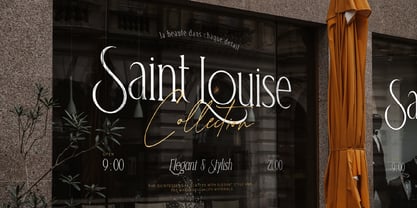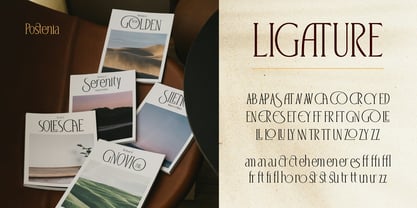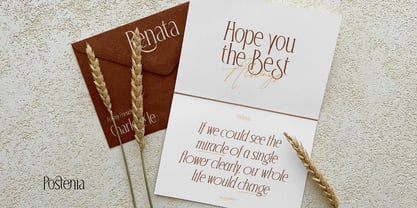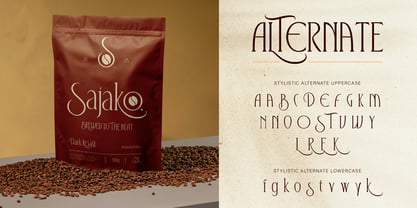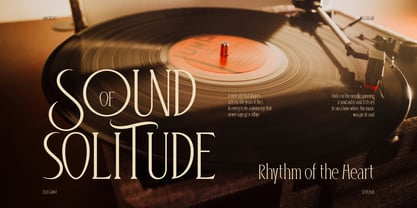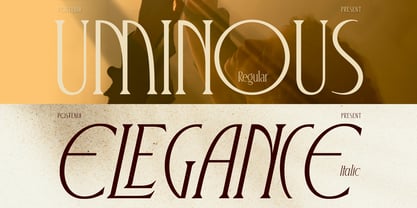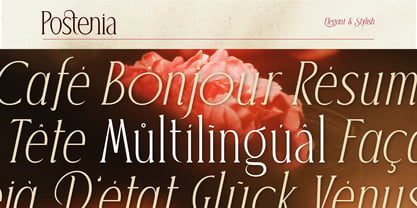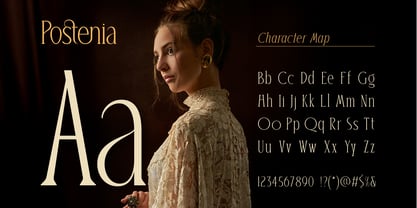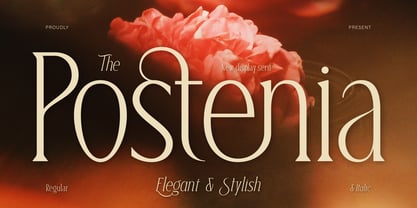
Postenia
by Burntilldead
The Postenia Font Family was designed by Eric Kurniawan and published by Burntilldead. Postenia contains 2 styles and family package options. More about this family
Introducing Postenia, an elegant display serif font that brings a touch of minimalist beauty to your designs. Designed with graceful ligatures and stylish alternates, Postenia effortlessly blends classic charm with a modern feel. This elegant font comes with two styles: Regular and Italic — and when combined, they create a beautifully romantic look. Perfect for luxury branding, editorial design, wedding invitations, cosmetic packaging, logos, business branding, and any creative project that needs a stylish contrast.
Designers: Eric Kurniawan
Foundry: Burntilldead